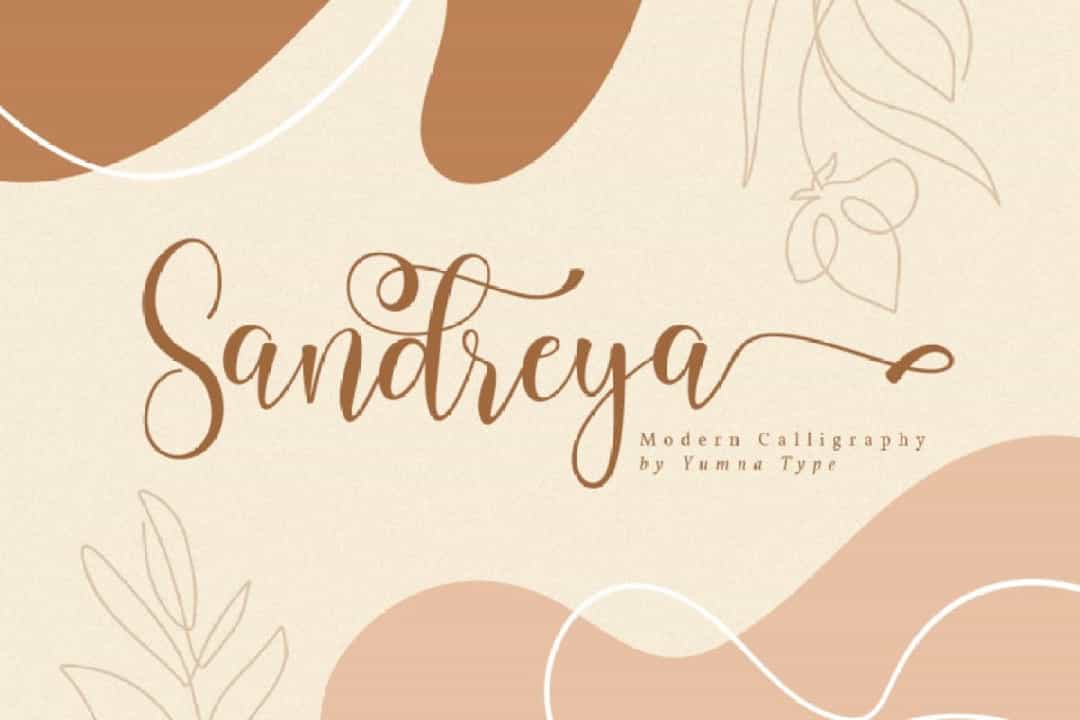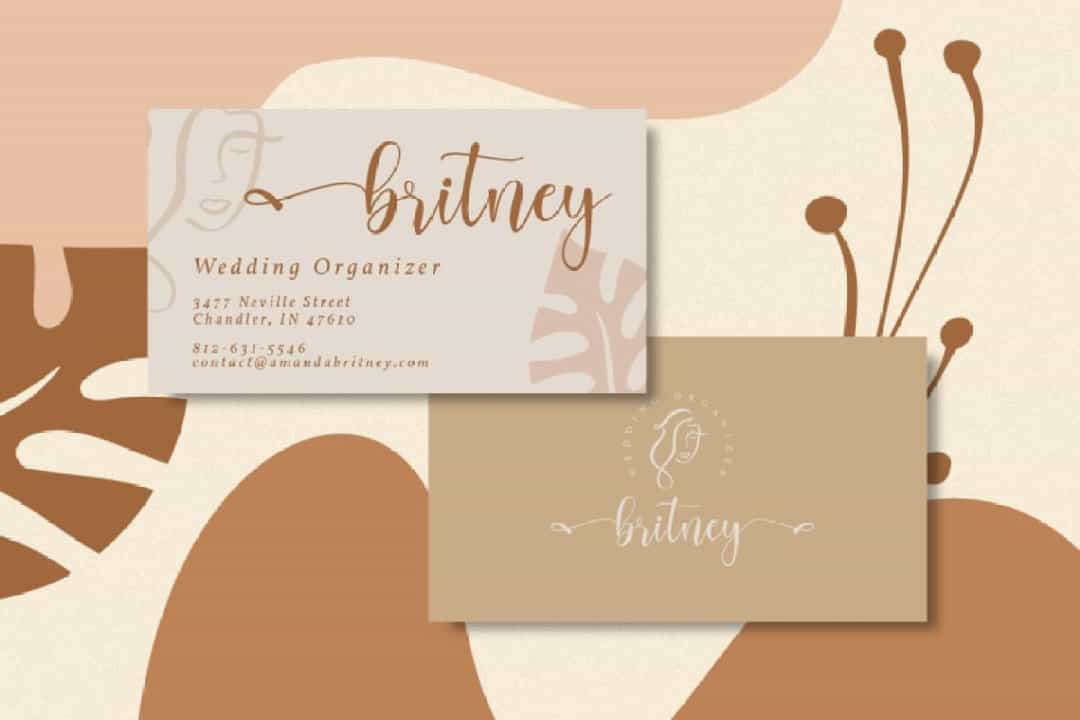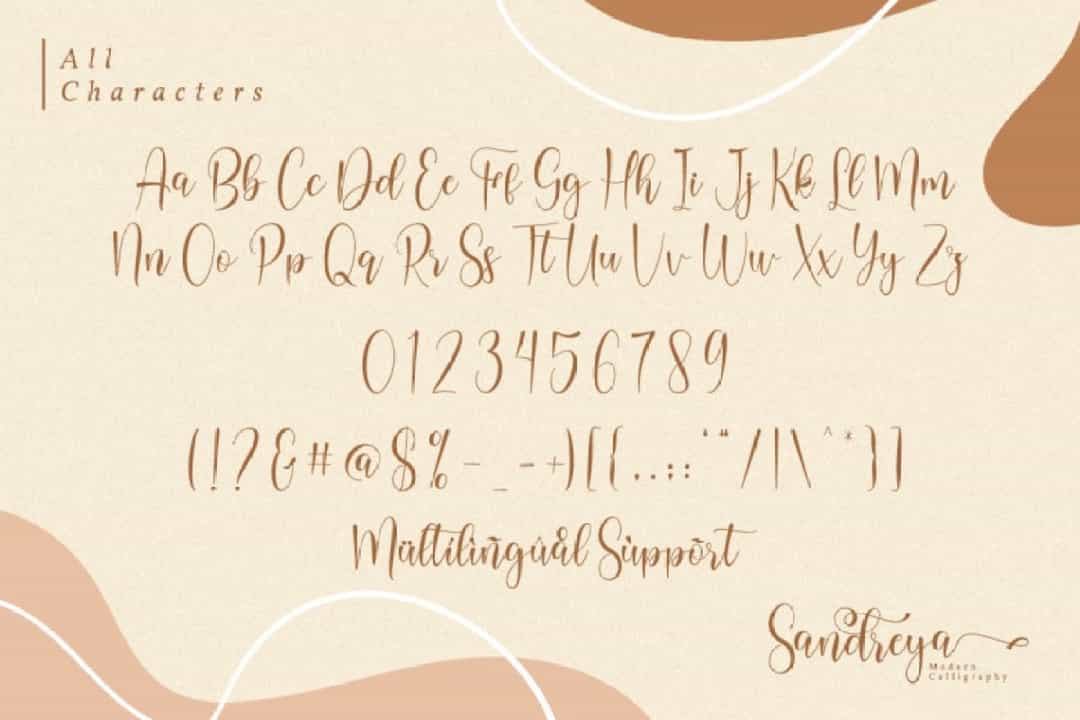
This font titled Sandreya Font is designed to give a touch of class to any given design project. Sandreya can be used for logo design, branding covers, posters magazine bridal invitations greeting card quotes greeting cards quotes or anything else!